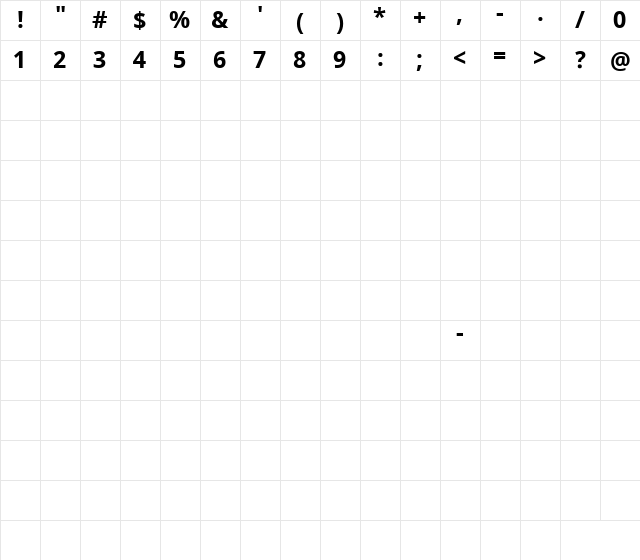
Phetsarath Bold
Foundry: Danh Hong
Designer: Danh Hong
Design Context for Phetsarath
Phetsarath is a composed and adaptable typeface that performs quietly and consistently across a wide range of design contexts. Its bold stroke weight gives it real presence on the page.
Pro Tip: Use Phetsarath in both headline and body roles to test its range before committing to a single application.